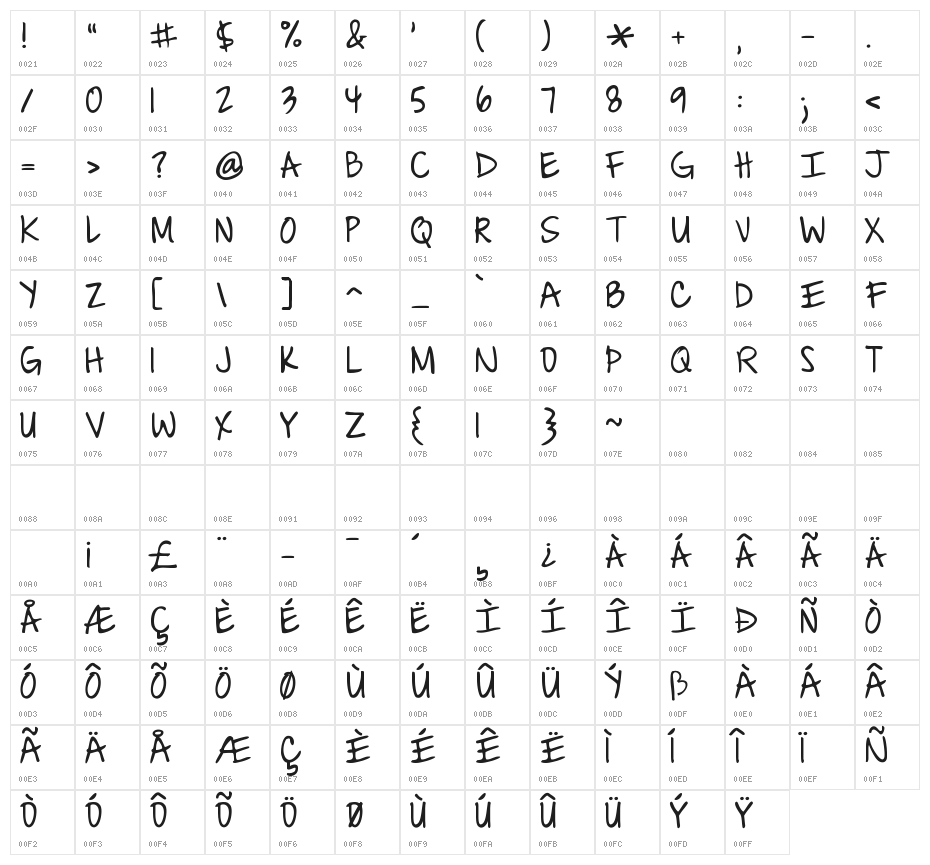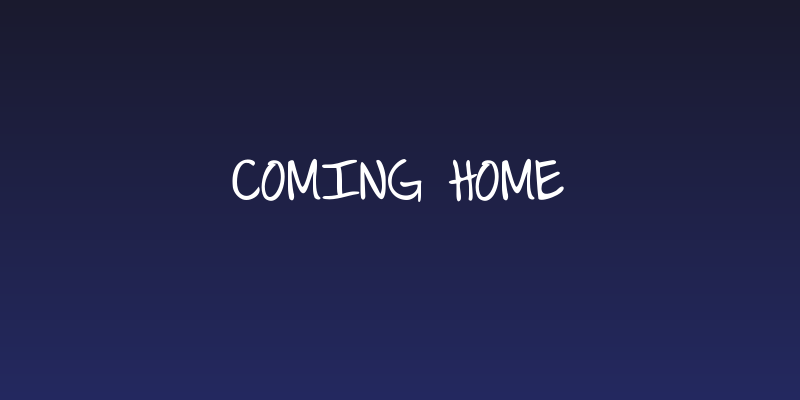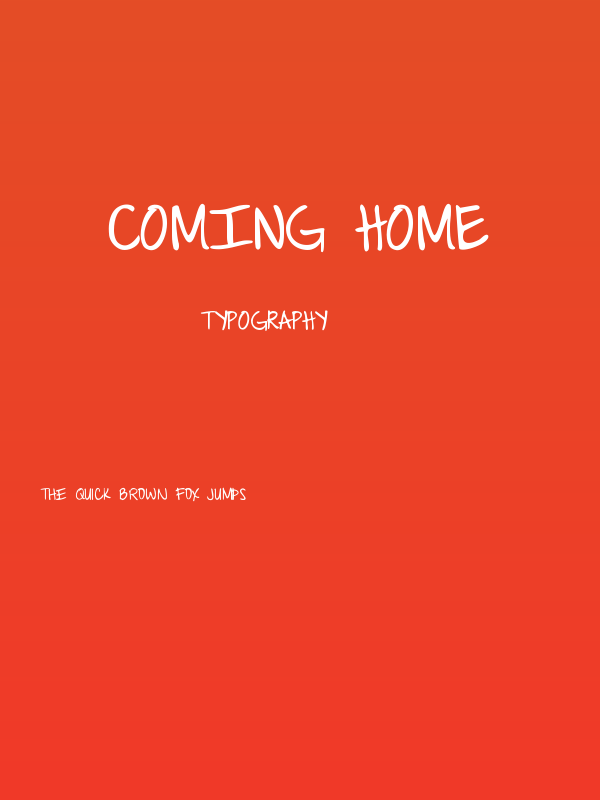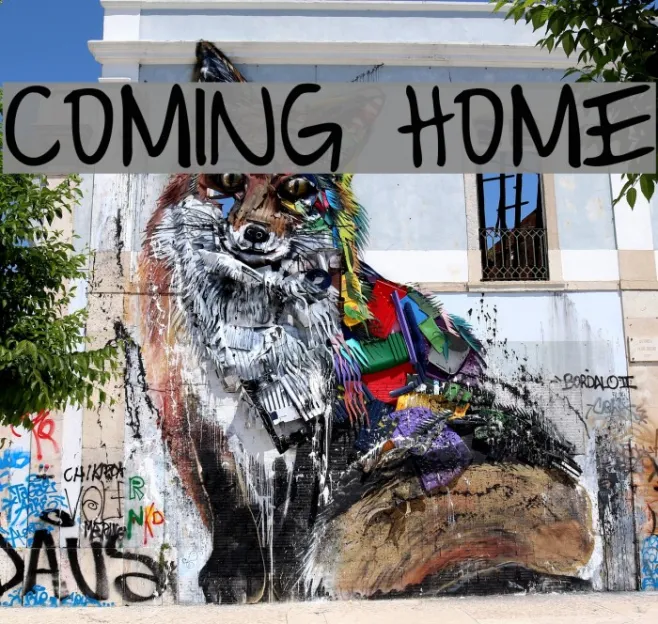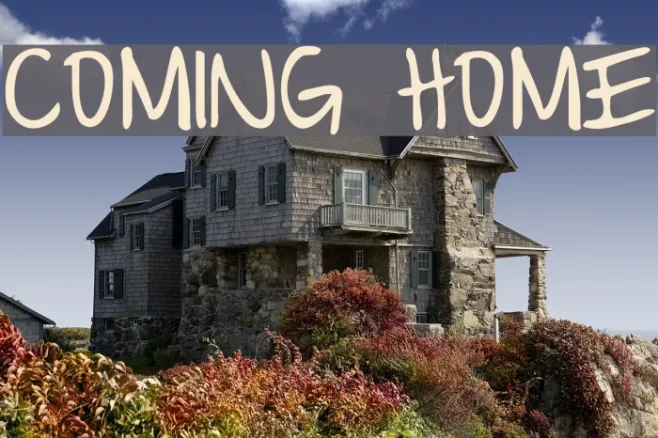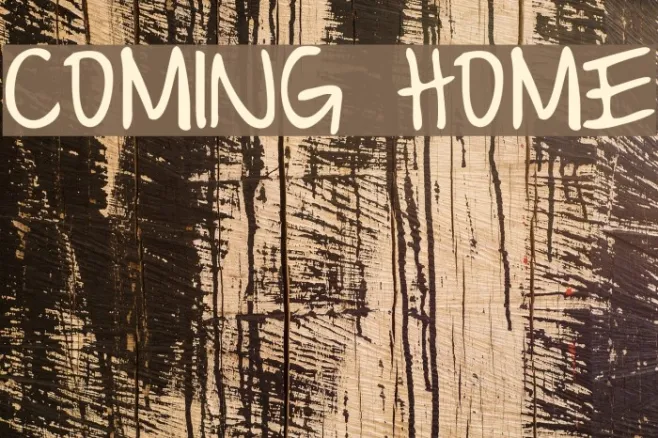
Coming Home Font
Coming Home Description
This font features a playful and casual handwritten style, characterized by its smooth, flowing lines and slightly irregular shapes. The letters have a natural, organic feel, with a slight tilt that adds to the informal aesthetic. The uppercase and lowercase letters maintain a consistent style, while the numerals and special characters complement the overall look. The strokes are moderately thick, providing good readability while maintaining a relaxed vibe. This font is ideal for projects that require a personal touch, such as invitations, greeting cards, or casual branding.
| Proposed Projects | Ideal for invitations, greeting cards, casual branding, and personal projects. |